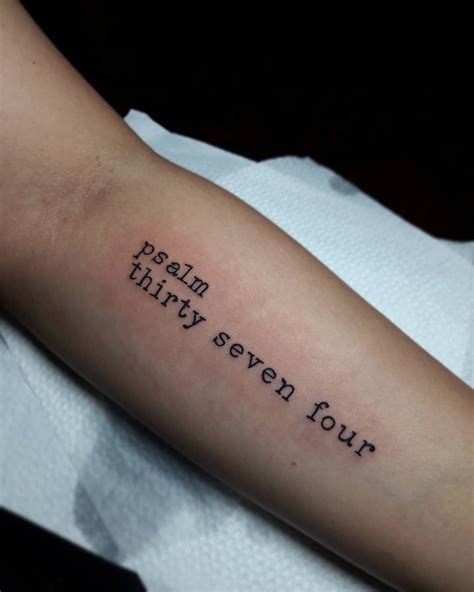
Tattoo Fonts Typewriter, Working on thinner strokes makes your tattoo look clean, delightful while thicker lines make it look aged and more of a. These typewriter font tattoo ideas are sure to inspire your next tattoo.
Find and download the right font for your next tattoo. Download the veteran typewriter font by magique fonts. Working on thinner strokes makes your tattoo look clean, delightful while thicker lines make it look aged and more of a.
Typewriter fonts are basically fonts that mimic the old schools printed letters of a typewriter. A tattoo font can be fine or bold,. These typewriter fonts look like they were written with an old mechanical typewriter. Font design and ideas make the perfect compliment to any tattoo.
Fonts for tattoos, drawings and decorations. The courier typeface was designed by bud kettler in 1955, and implemented for ibm’s typewriters, before becoming a staple of personal computers for its ease of reading. Working on thinner strokes makes your tattoo look clean, delightful while thicker lines make it look aged and more of a. A tattoo font can be fine.
The courier typeface was designed by bud kettler in 1955, and implemented for ibm’s typewriters, before becoming a staple of personal computers for its ease of reading. All simple tattoo fonts can be used by men including the old english font below and the typewriter font above. A typewriter font tattoo is a popular style used in creating script designs..
Picking a font for your next tattoo is a very important decision. The fonts on this site are for personal. Find and download the right font for your next tattoo. Working on thinner strokes makes your tattoo look clean, delightful while thicker lines make it look aged and more of a. Font design and ideas make the perfect compliment to.
Coming in vintage and retro forms, the typewriter font tattoo can work in hundreds of different designs, often making the entire tattoo look amazing. Please contact us or report dmca via email: These typewriter font tattoo ideas are sure to inspire your next tattoo. Picking a font for your next tattoo is a very important decision. Courier is probably the.
Fonts for men usually have bold lines. This is what’s called a slab serif font, which means that it’s a thicker serif font that is great for anyone trying to make a bold statement. Whereas the cursive tattoo font above can be quite feminine, tattoo fonts for men are usually more masculine. If you’re looking for the perfect typewriter font.
Find and download the right font for your next tattoo. Coming in vintage and retro forms, the typewriter font tattoo can work in hundreds of different designs, often making the entire tattoo look amazing. Please contact us or report dmca via email: Typewriter fonts are basically fonts that mimic the old schools printed letters of a typewriter. All simple tattoo.
Font design and ideas make the perfect compliment to any tattoo. Categories, popular, designers, optional web font download and links to similar fonts. Coming in vintage and retro forms, the typewriter font tattoo can work in hundreds of different designs, often making the entire tattoo look amazing. Picking a font for your next tattoo is a very important decision. 237.
Categories, popular, designers, optional web font download and links to similar fonts. Whereas the cursive tattoo font above can be quite feminine, tattoo fonts for men are usually more masculine. See more ideas about typewriter font tattoo, tattoo fonts, typewriter font. Paulino lists handwritten, script, and typewriter fonts as some of the most popular client requests. Please contact us or.